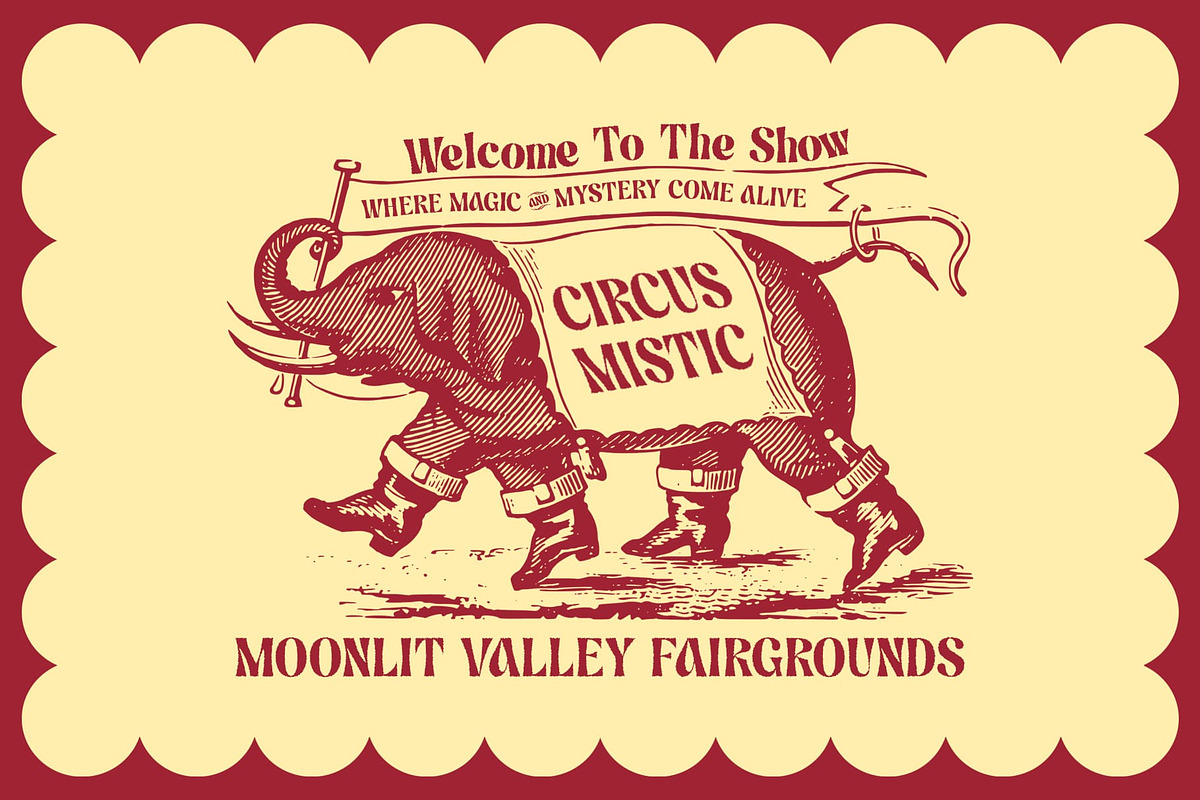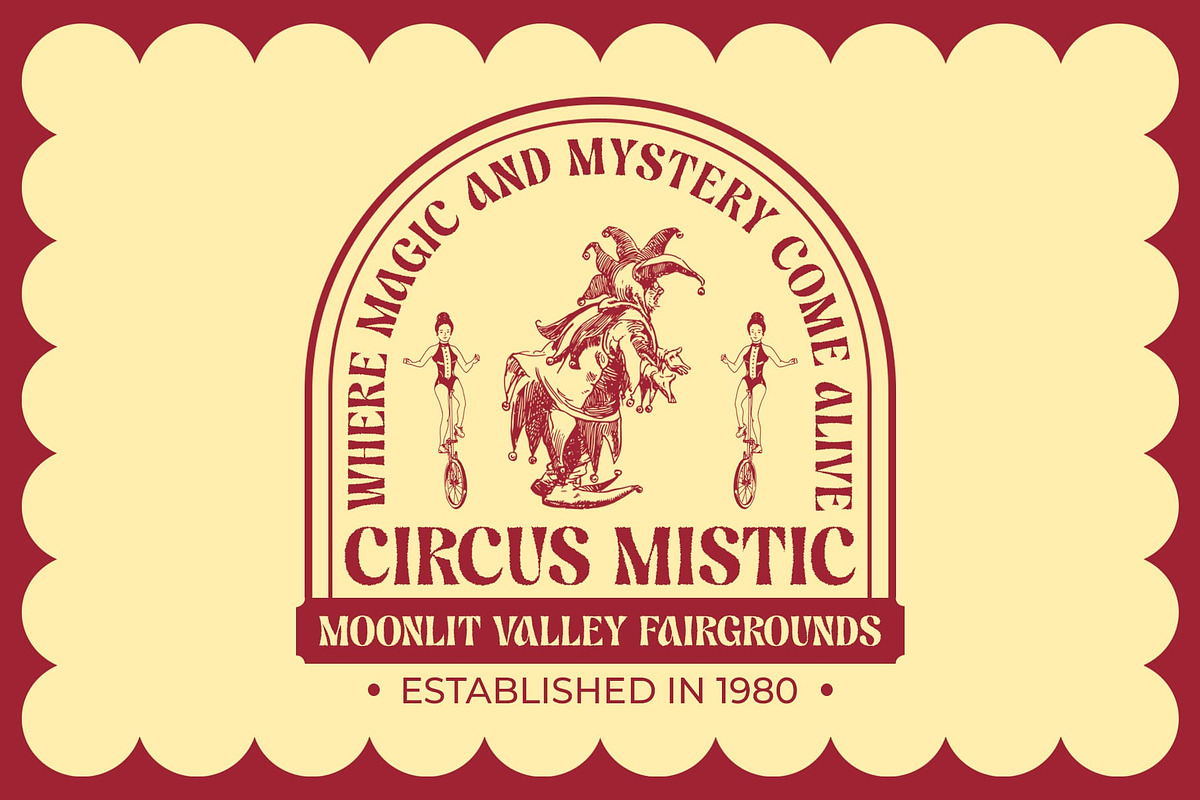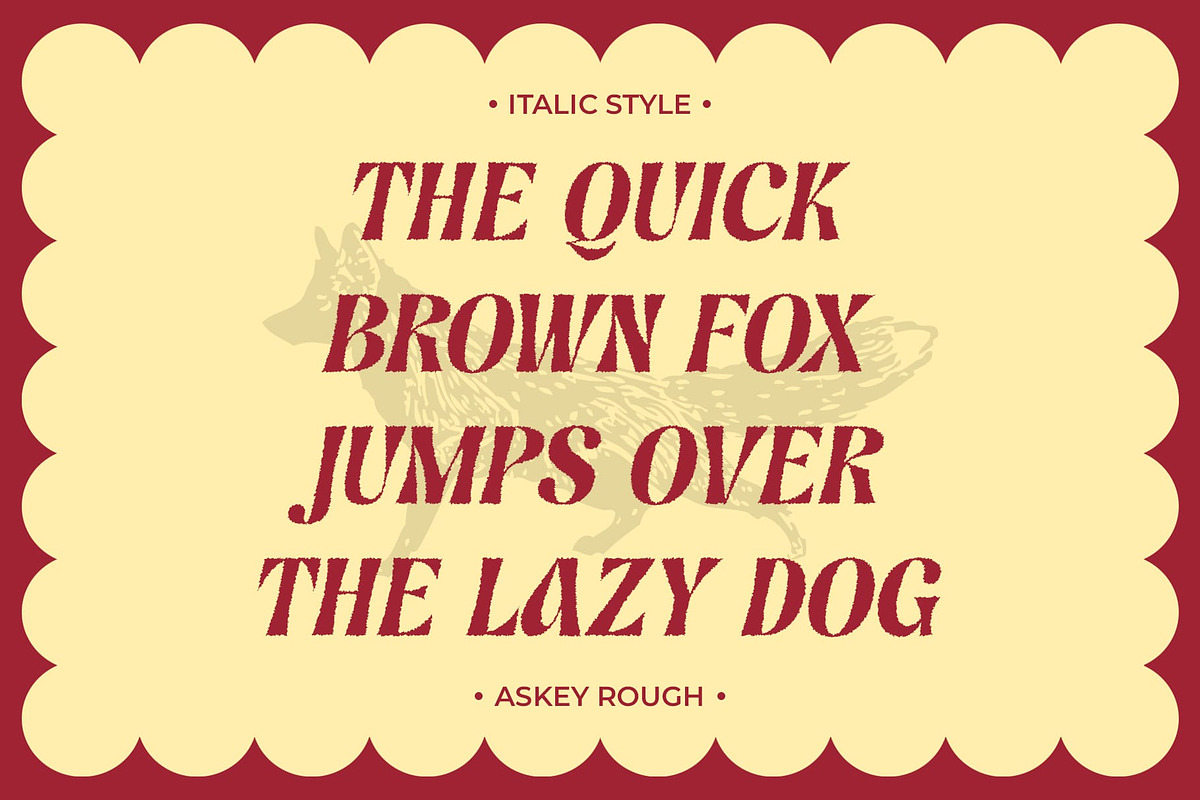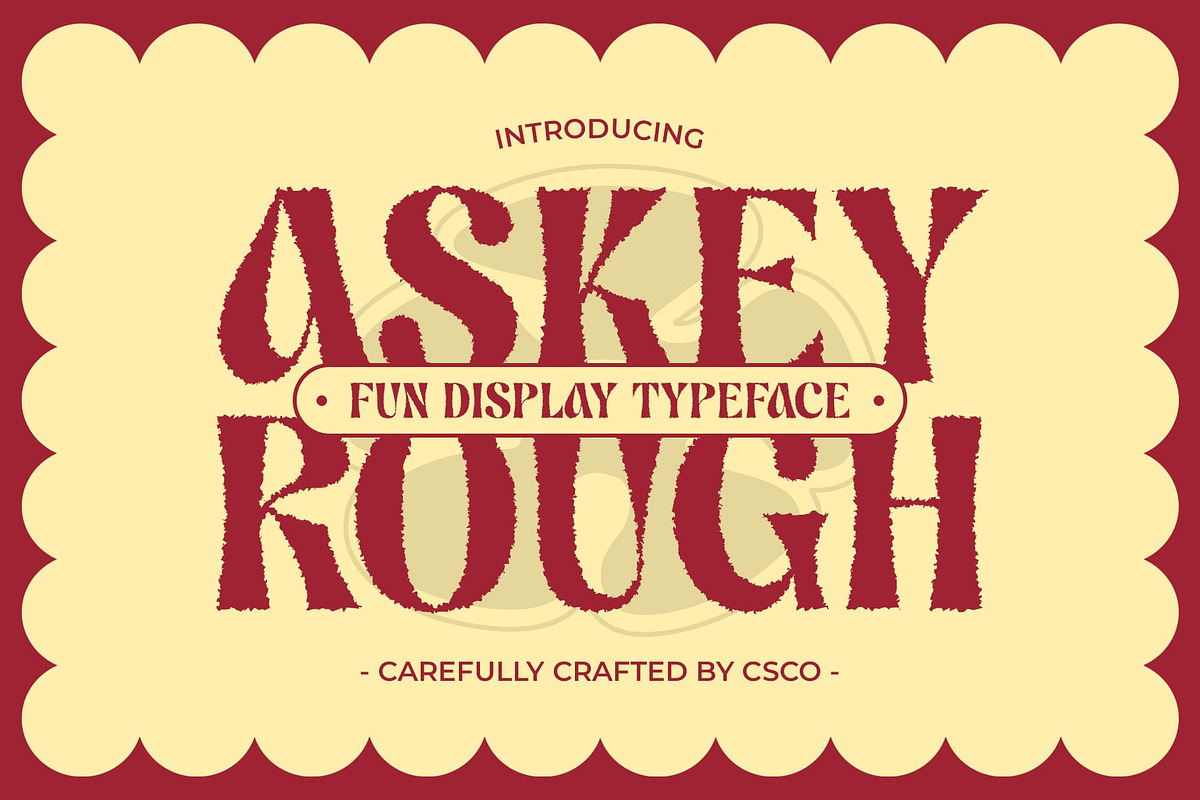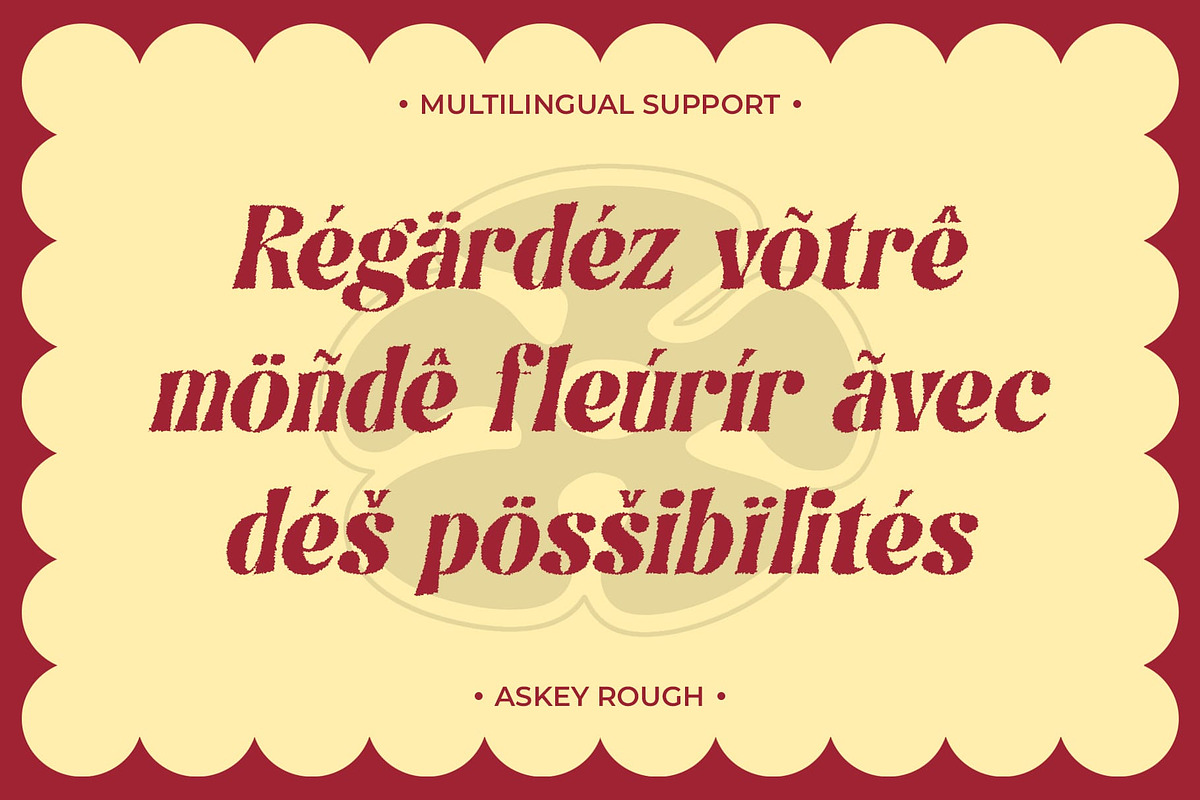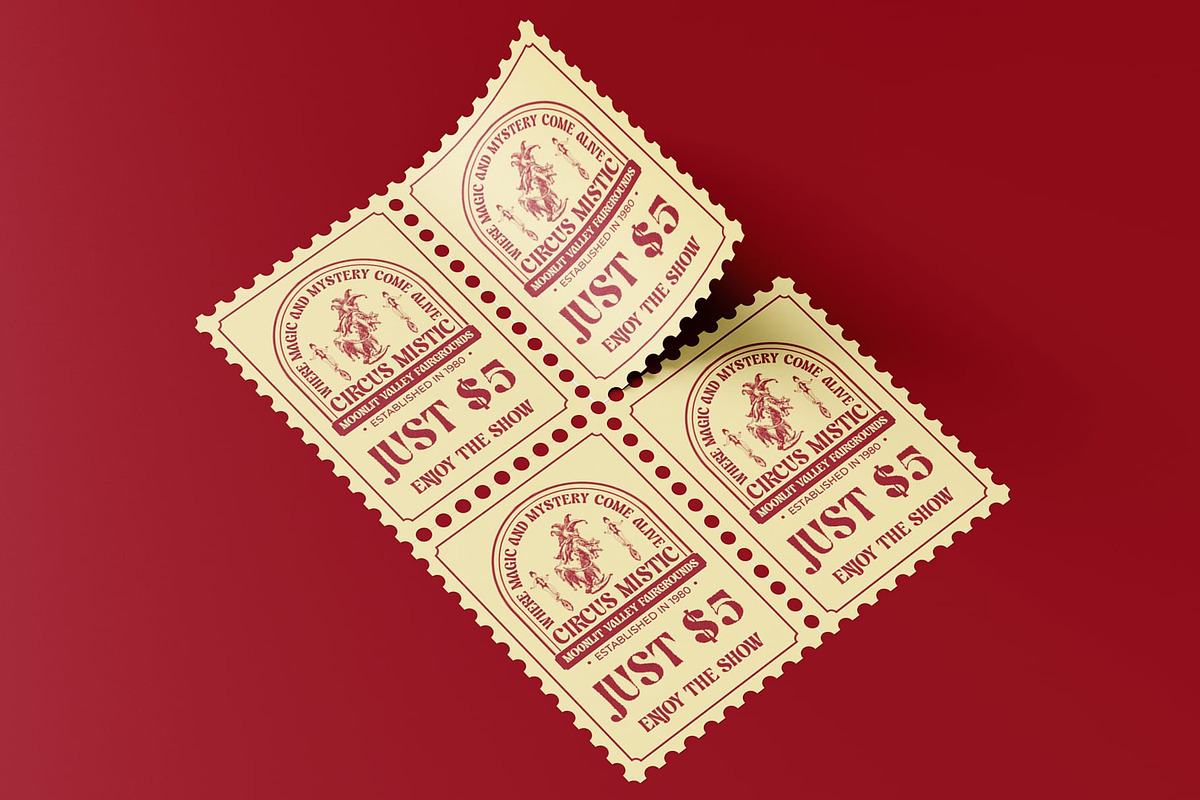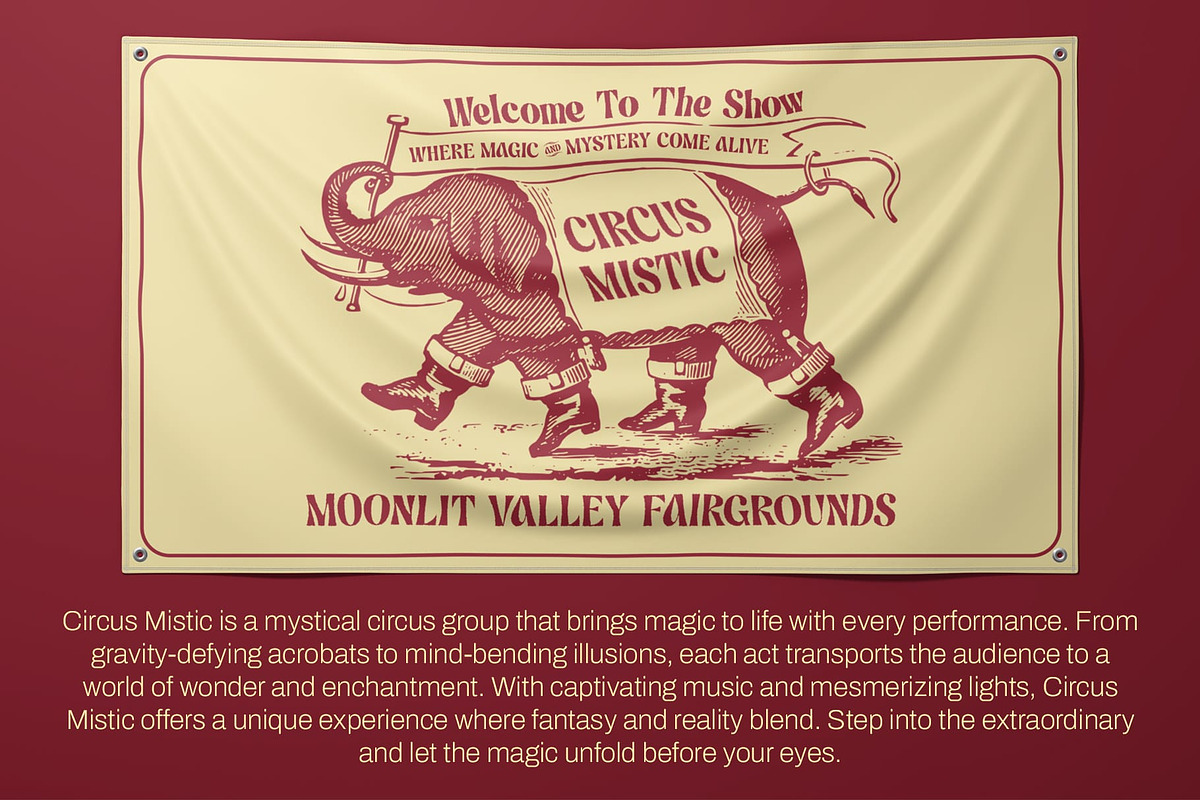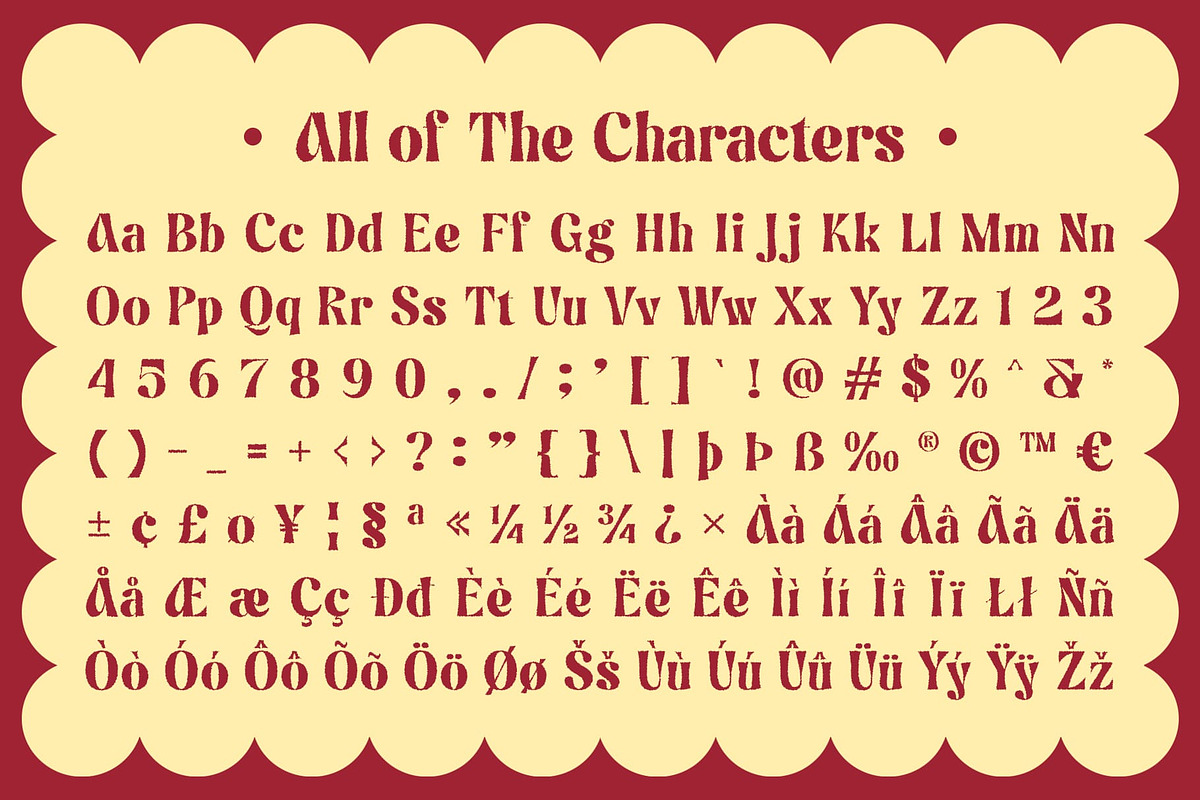
Askey Rough
Askey Rough Font: Bold Retro Charm
Striking Display Serif with Funky Flair Askey Rough is a captivating display serif font that showcases a bold shape paired with a distinctive rough effect, creating a striking and funky retro impression. Its daring design is rich in character, evoking a sense of nostalgia while infusing a fresh, modern twist. The rough texture not only enhances its visual appeal but also adds an engaging quality that brings each letter to life, making it a standout choice for various design projects.
Nostalgic Yet Contemporary Design This font’s unique combination of classic style and modern flair makes it perfect for a variety of creative applications. The eye-catching serif details enhance its personality, while the bold and unconventional shapes ensure that your message is delivered with impact. Whether you’re designing eye-catching posters, playful branding, or memorable packaging, Askey Rough emphasizes fun and uniqueness in every project. Its character-rich design allows it to stand out in a crowded marketplace, capturing attention and sparking interest.
Versatile Applications for Creative Expressions Ideal for projects that aim to celebrate individuality and creativity, Askey Rough is versatile enough to convey a wide range of emotions—from whimsical and cheerful to bold and assertive. Its retro charm invites viewers in, making it a fantastic choice for anything from event promotions to artistic endeavors.